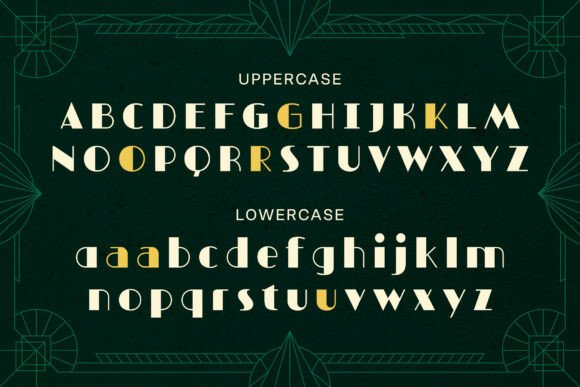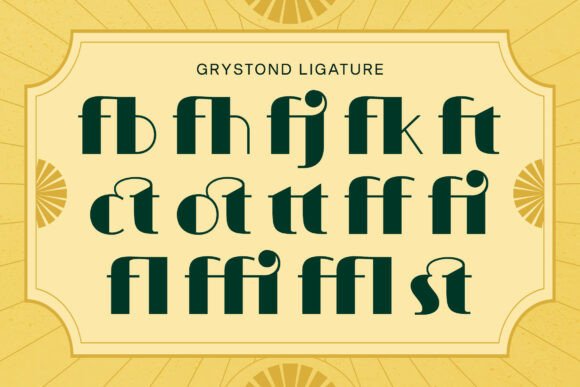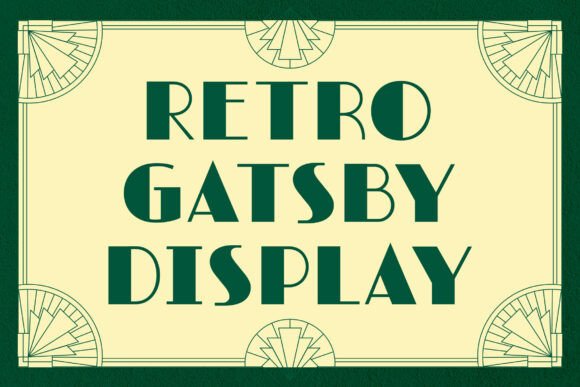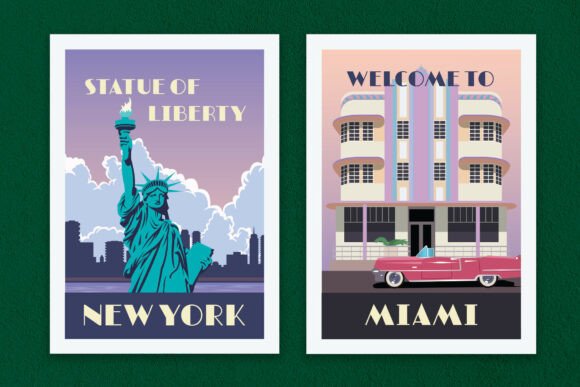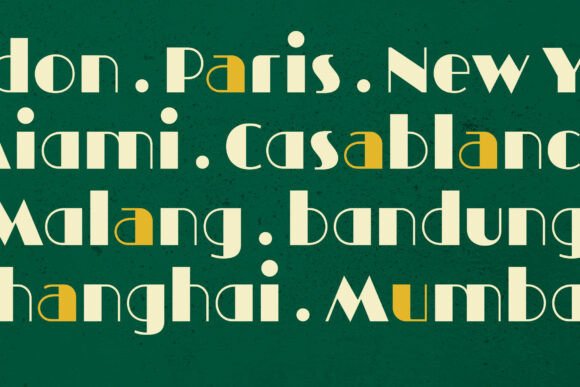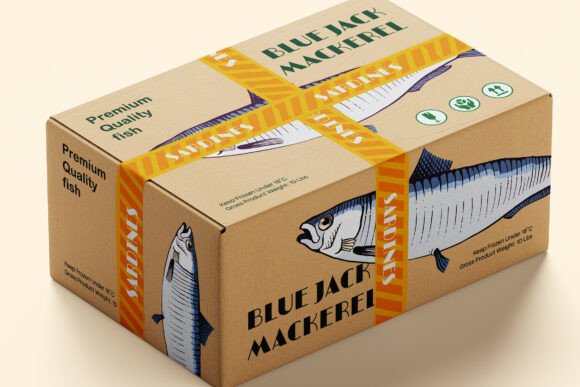
Introduction to Grystond Font
Grystond – Retro Gatsby Display Font – Modern Luxury Art Deco & Vintage Typeface Grystond is a retro display font inspired by the Art Deco era and the iconic Gatsby style of the 1920s.
With its strong vintage feel and elegant character, Grystond is designed to bring a luxurious and sophisticated touch to any design project This font features bold, unique ligatures, and charming geometric proportions, making it an ideal choice for branding, logos, product packaging, posters, headlines, advertising and any project that need to stand out.
Key Features of Grystond Font